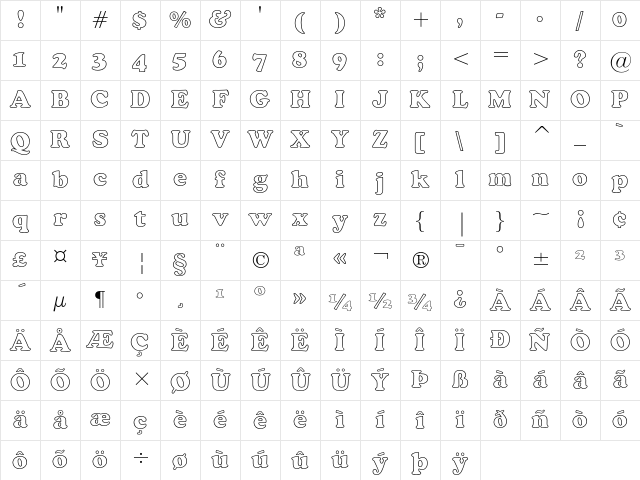
Bitstream Cooper Black Outline Free Font
Bitstream Cooper Black Outline
Style: Black Outline
Bitstream Cooper Family
Bitstream Cooper Black Outline
Design Context for Bitstream Cooper
Bitstream Cooper is built around its visual character rather than neutral utility - its distinctive forms are designed to make an impression at display sizes.
Font Pairing: Pair with a clean neutral sans-serif for body copy to let Bitstream Cooper's character lead without overwhelming the composition.
Pro Tip: Use Bitstream Cooper exclusively at display sizes - it was designed to be seen, not read at length. Let a neutral companion handle body copy.